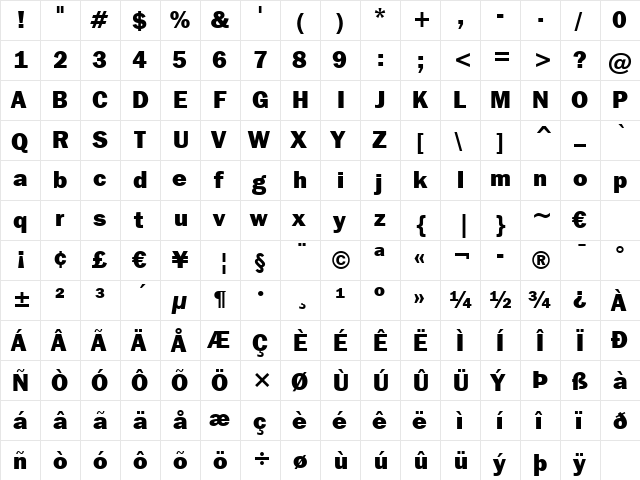
font174 Regular
Design Context for font174 Typeface
font174 takes a measured approach to typography — its balanced proportions and neutral character make it a reliable workhorse for both digital and print work.